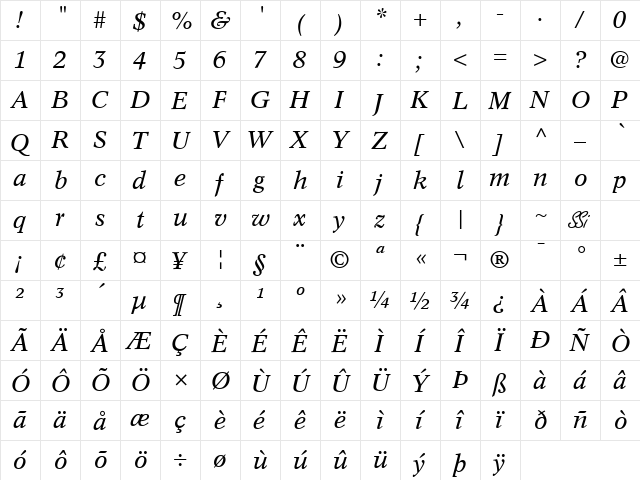
Informatics SSi Italic Font Preview
Informatics SSi Italic
Informatics SSi Italic Font Details
Design Context for Informatics SSi Typeface
Informatics SSi is a composed and adaptable typeface that performs quietly and consistently across a wide range of design contexts. The slanted form adds forward momentum and visual energy.
Pro Tip: Try Informatics SSi for annotation and caption copy alongside an upright companion — the contrast in angle creates a dynamic but ordered typographic system.